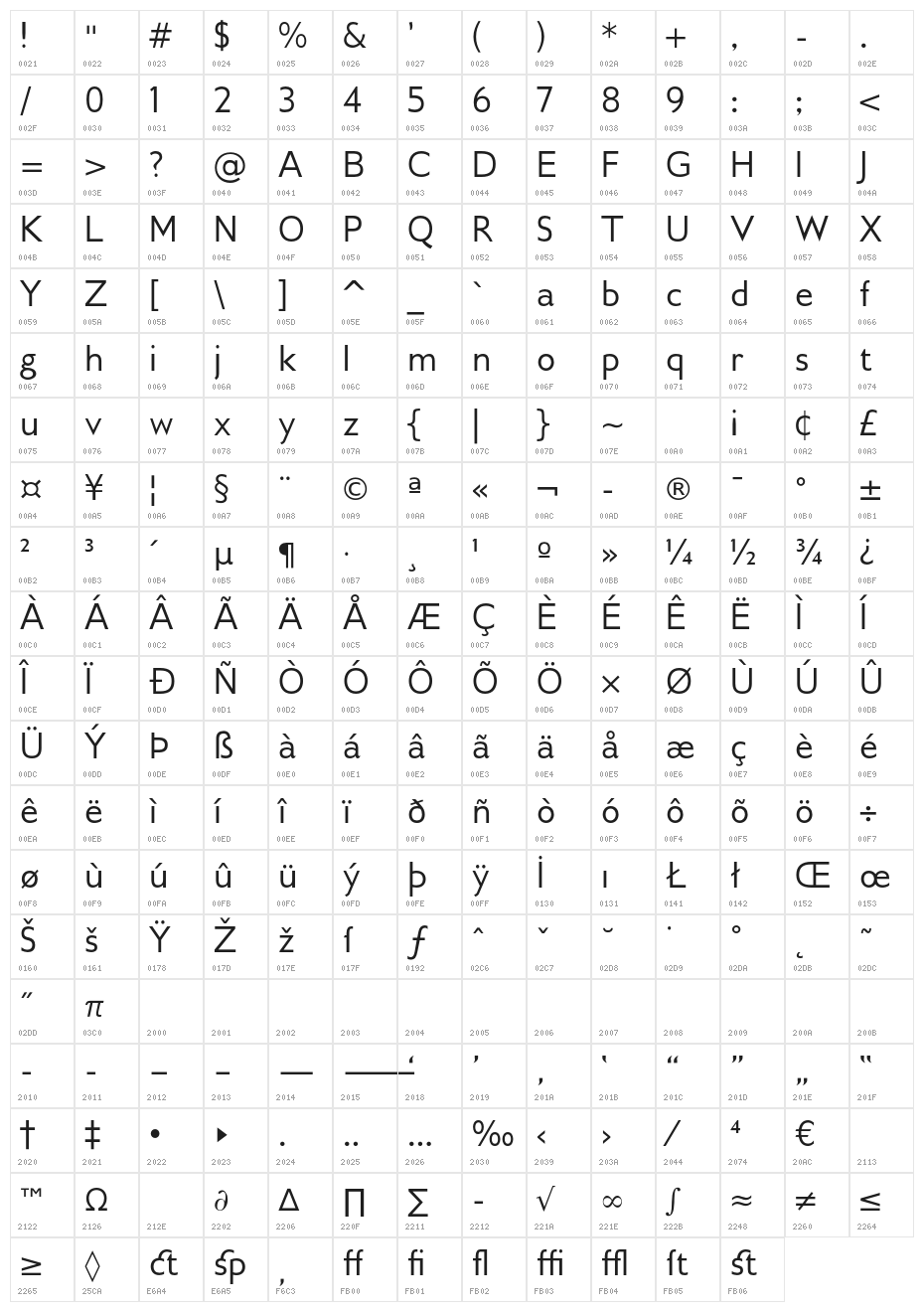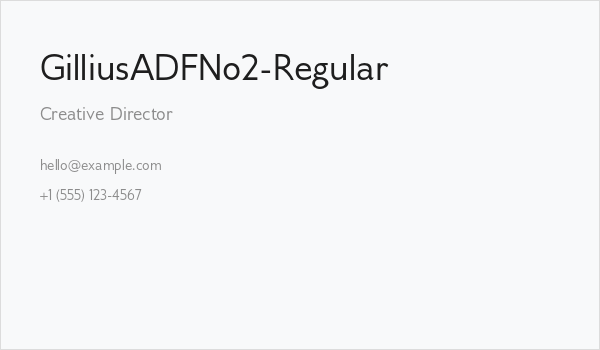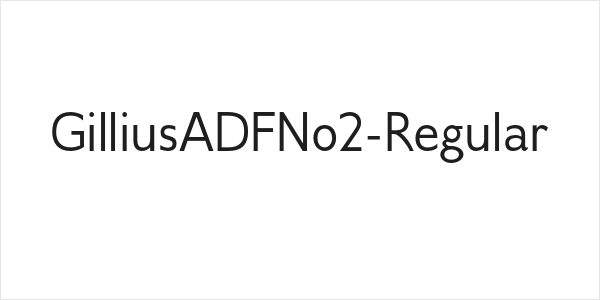
GilliusADFNo2-Regular Font
GilliusADFNo2-Regular Description
This font features a clean and modern sans-serif design, characterized by its geometric shapes and uniform stroke widths. The uppercase letters are bold and assertive, while the lowercase letters maintain a consistent and harmonious appearance. The numerals are clear and easily distinguishable, making them suitable for various applications. Special characters are well-defined, adding to the font's versatility. The overall design is minimalistic, with a focus on readability and functionality, making it ideal for both digital and print media.
Fonts by Arkandis Digital Foundry
Proposed ProjectsIdeal for branding, web design, editorial layouts, and corporate materials.